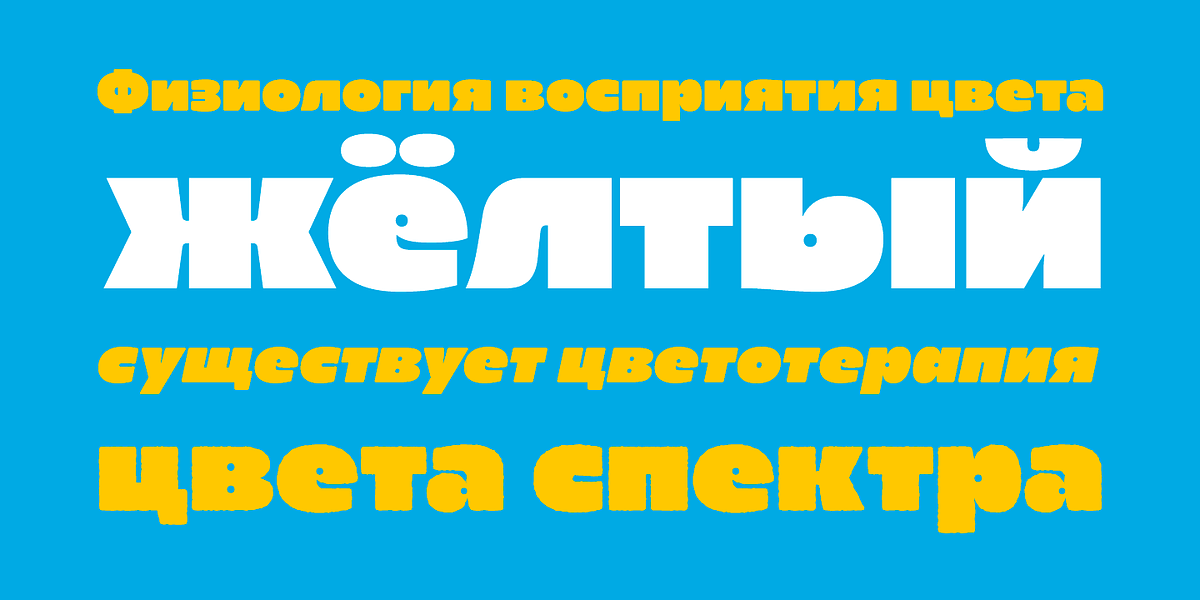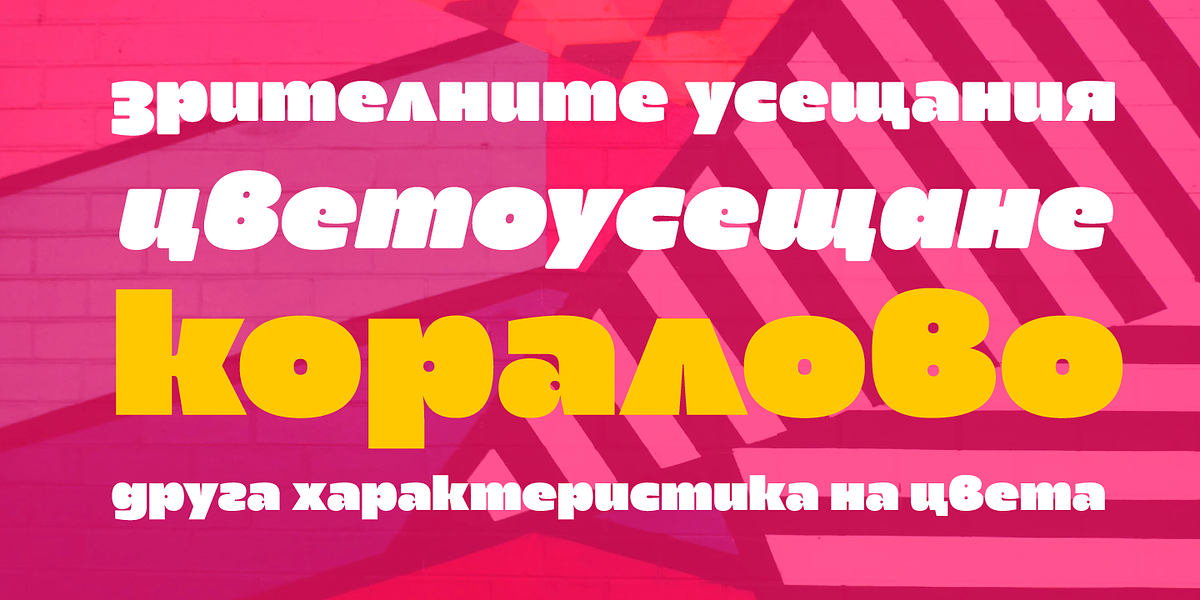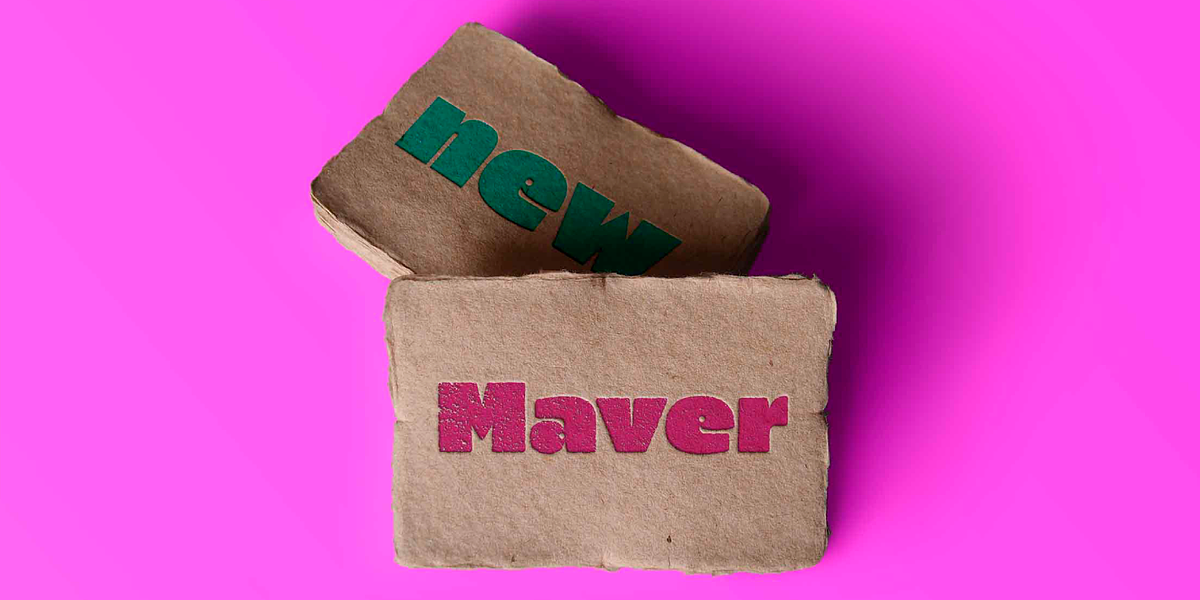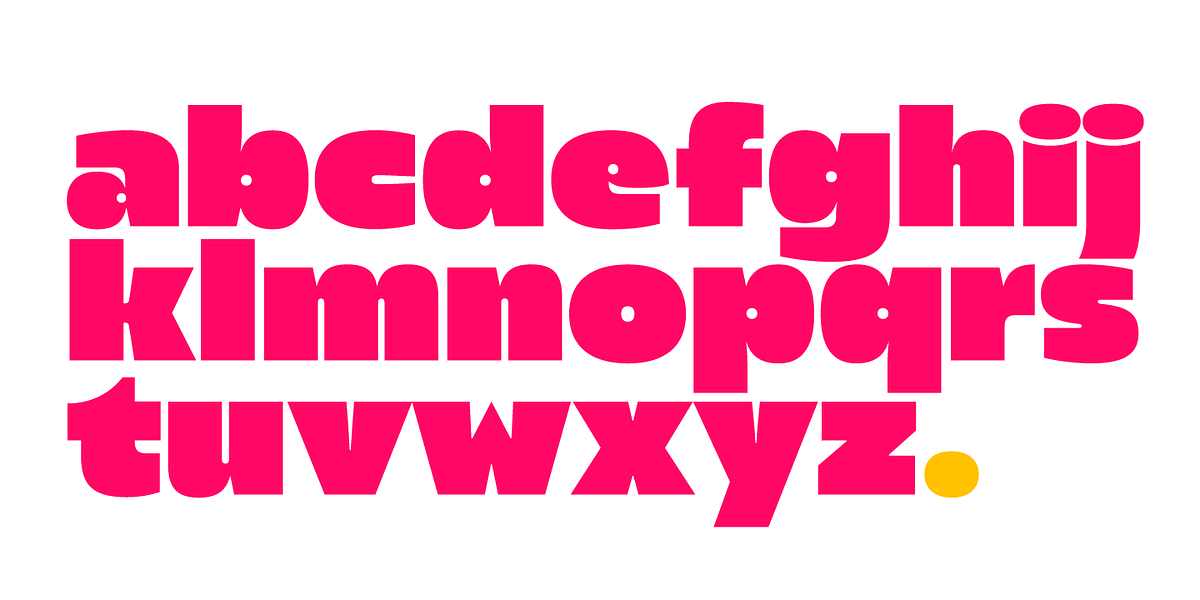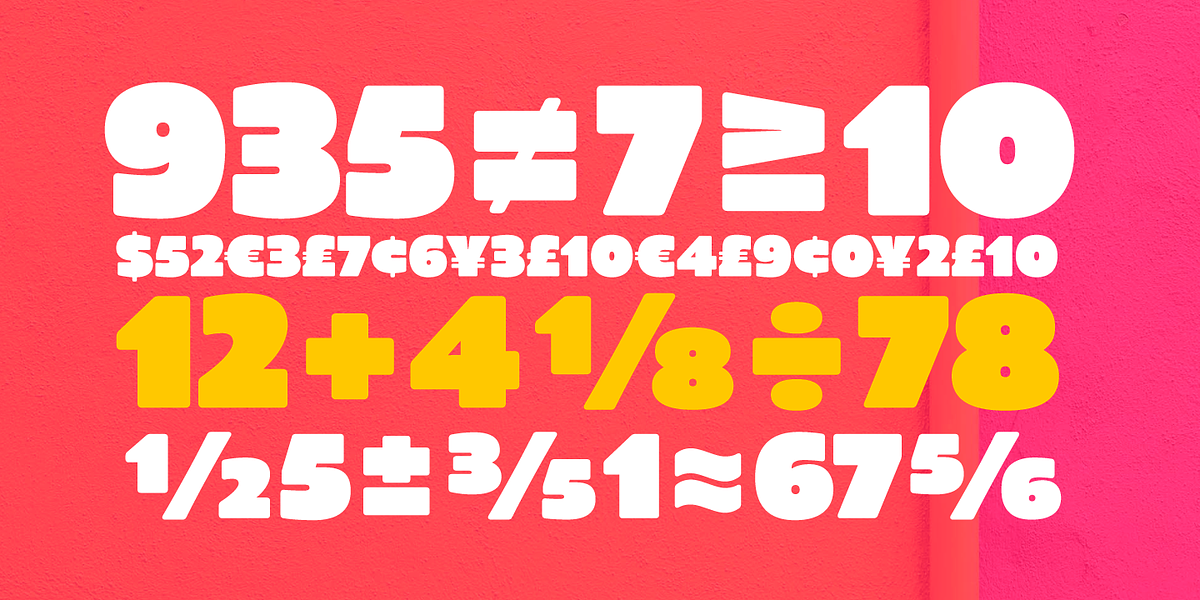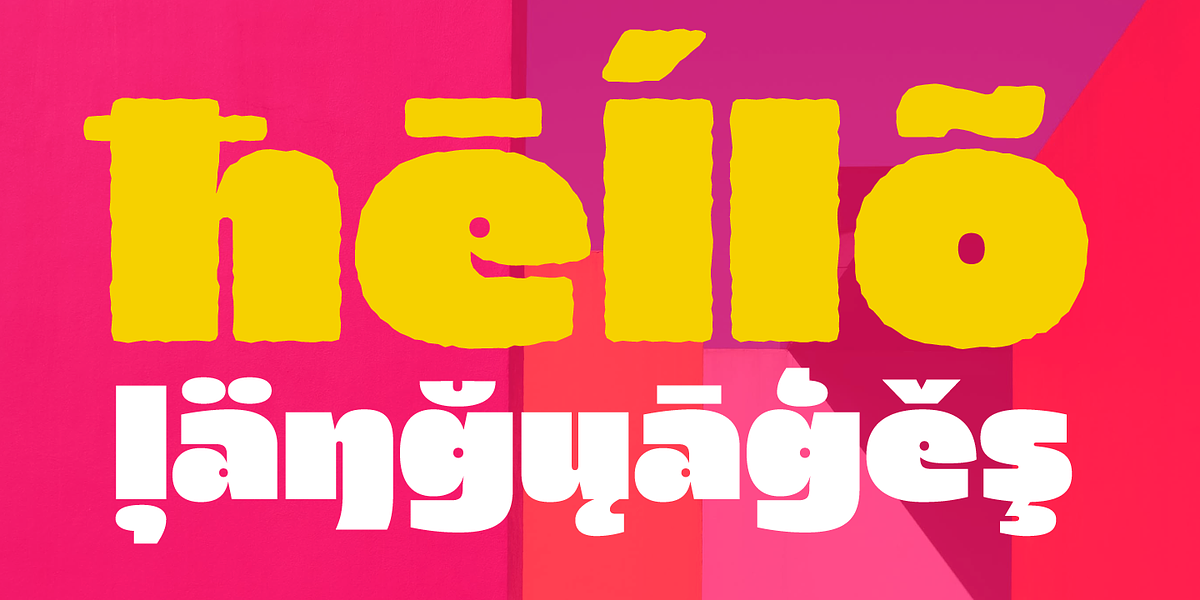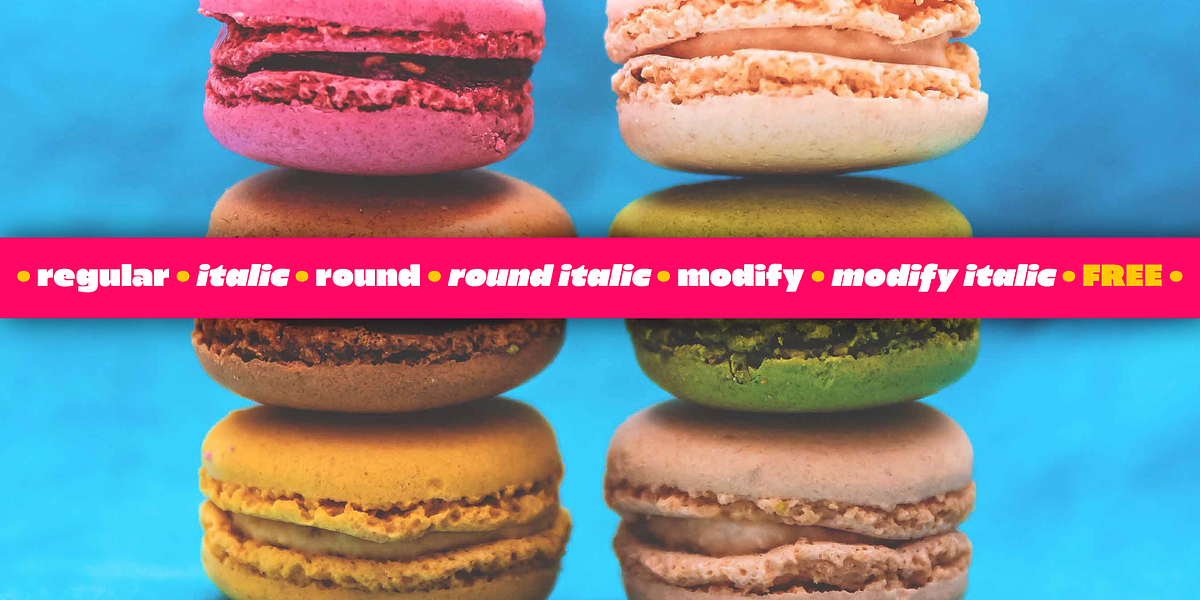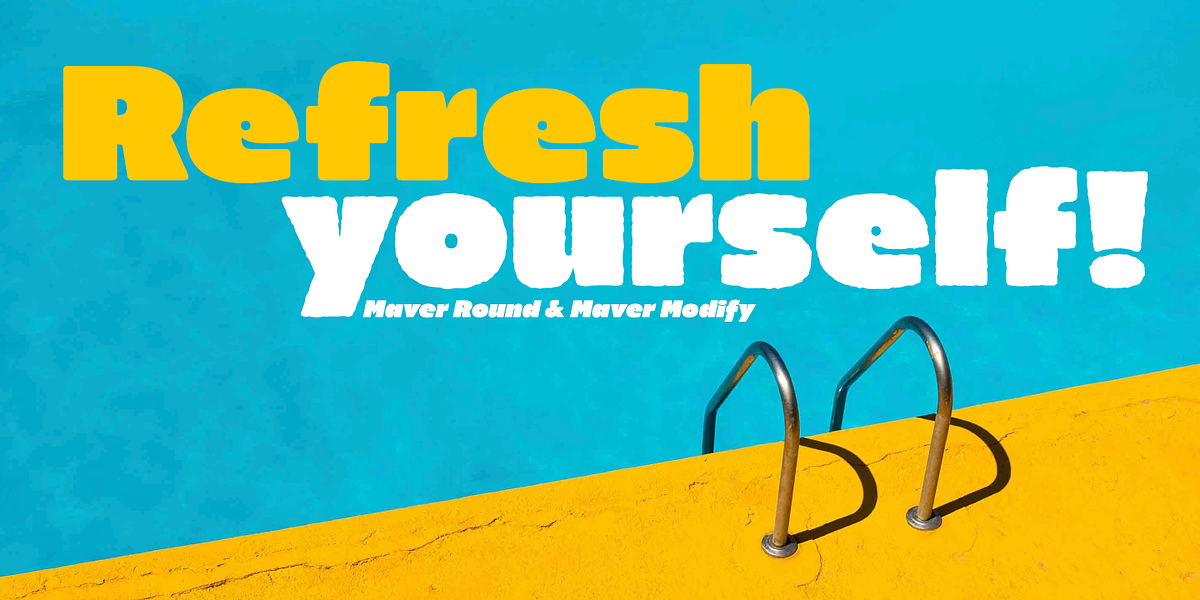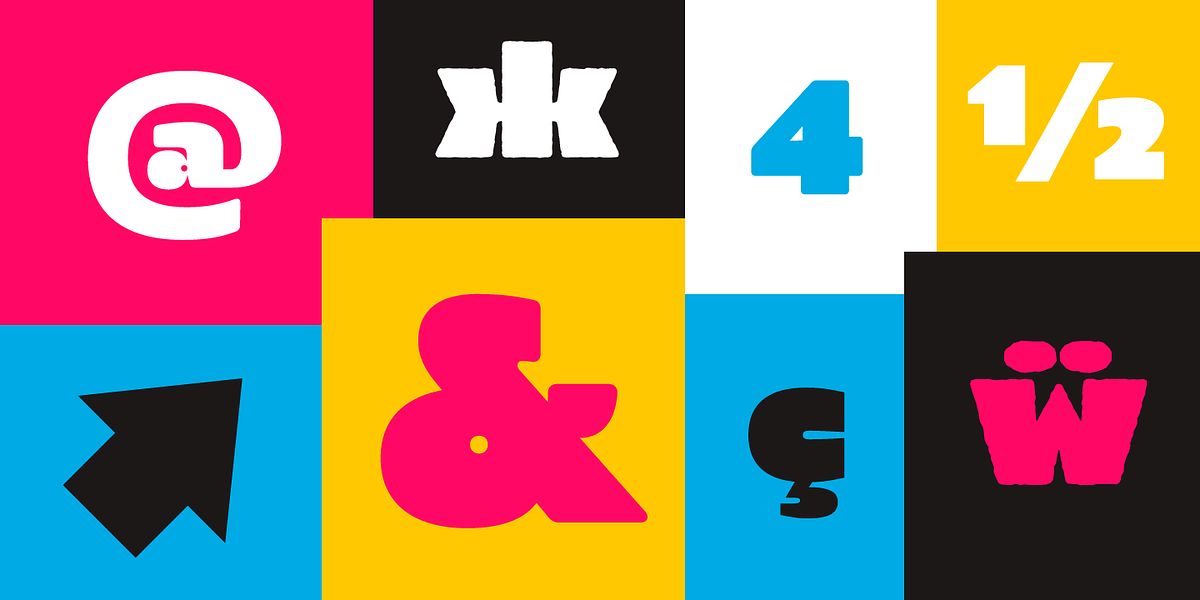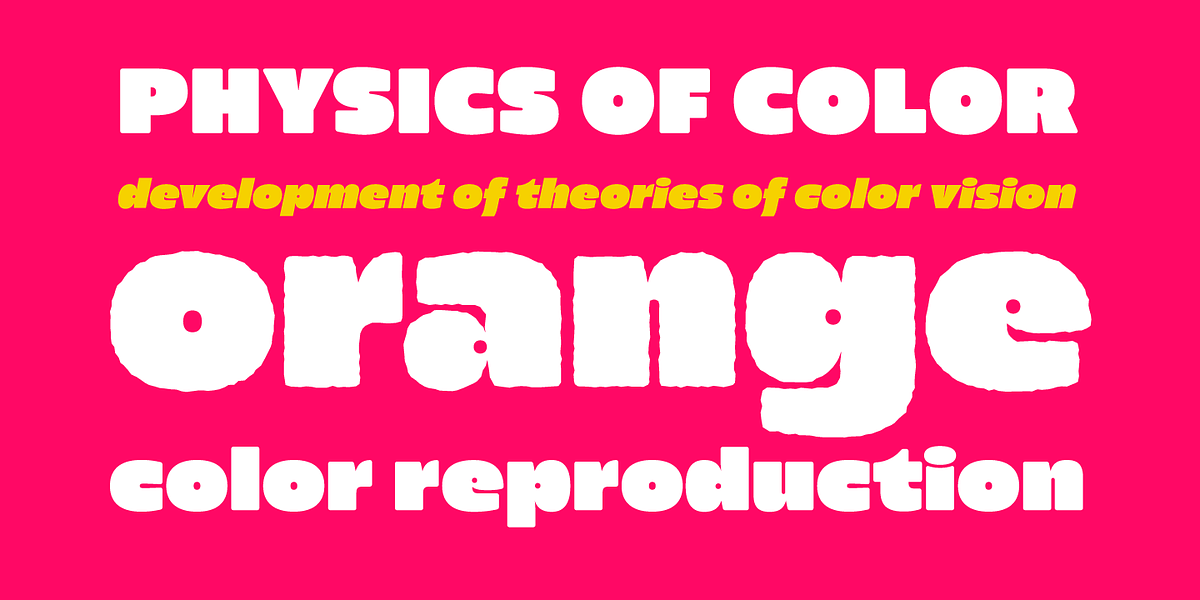
Maver
Maver is a versatile sans serif font family designed by Ani Dimitrova. It includes six weights, each with standard ligatures and a variety of figures. The wide proportions make it well-suited for screen display, and its range of styles allows for flexibility in typographic design. Maver's characteristics suggest a modern aesthetic that can be used effectively in branding, headlines, posters, and web design.